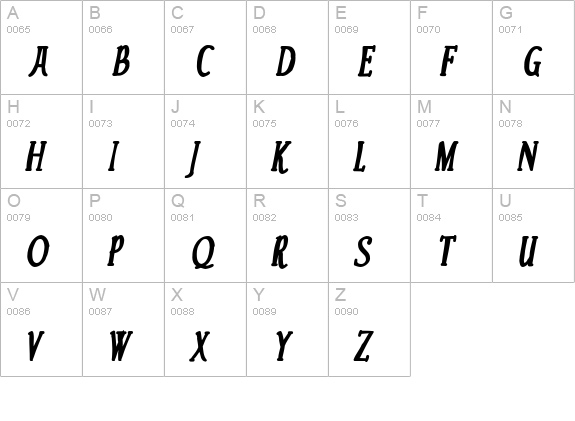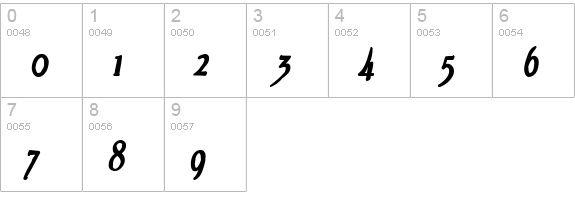
Echelon Ink Italic is a distinctive, italic variant in the Echelon typeface family \xE2\x80\x94 well suited to design and typography projects.
Echelon Ink Italic font is a unique and stylish typeface that exudes elegance and sophistication. Its slanted, flowing design adds a touch of drama to any project, making it perfect for creating eye-catching headlines, branding materials, and more. The distinctive ink-inspired strokes give this font a handcrafted feel, adding a personal touch to your designs. Best of all, Echelon Ink Italic font is available for free download at FontsMarket.com. Whether you're a designer looking to add a new font to your collection or a hobbyist working on a personal project, this font is a fantastic addition to your toolkit. Don't miss out on the opportunity to elevate your designs with the beauty and versatility of Echelon Ink Italic font. Download it today and start creating stunning visuals that will captivate your audience.